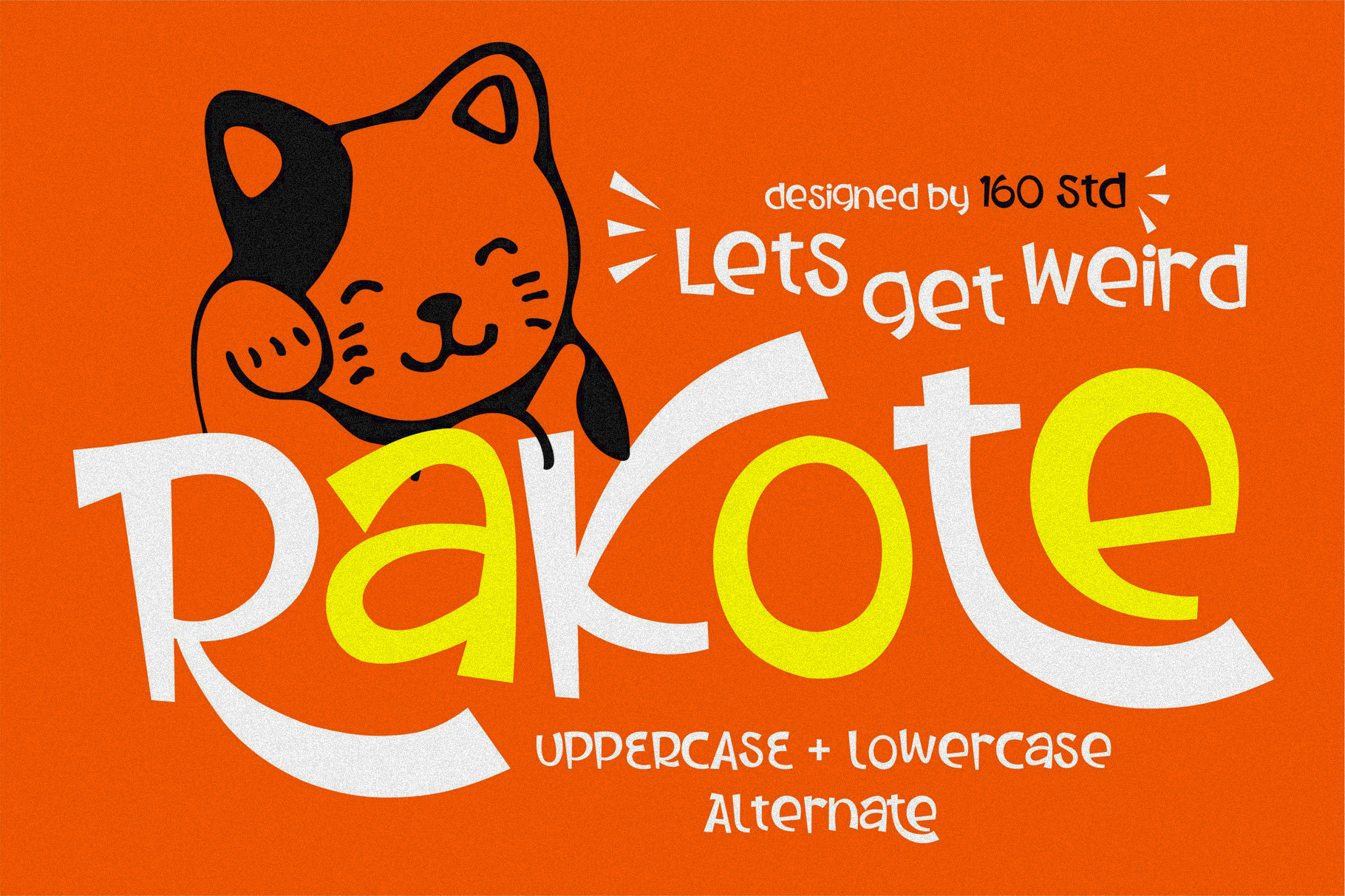
Rakote - Fun and Strong Font
Playful and Strong Font!!
All character have same height so you can combine it Lower and Uppercase. Also comes with Alternates, so You can make unique combinations!
- Upper + Lowercase Letters
- Numbers + Punctuation
- Non-English support